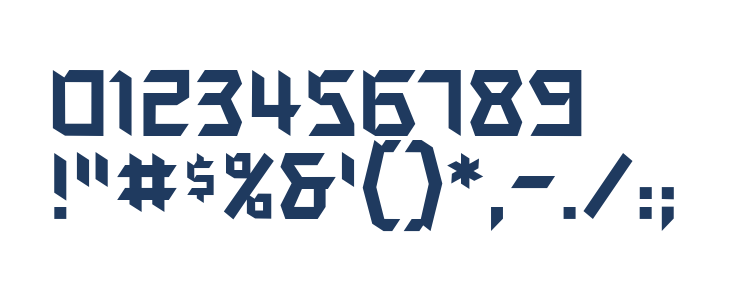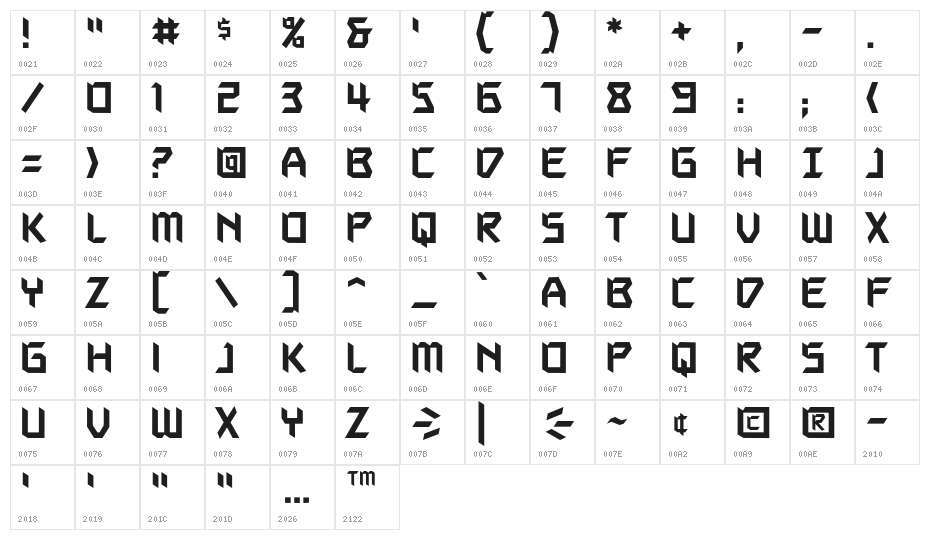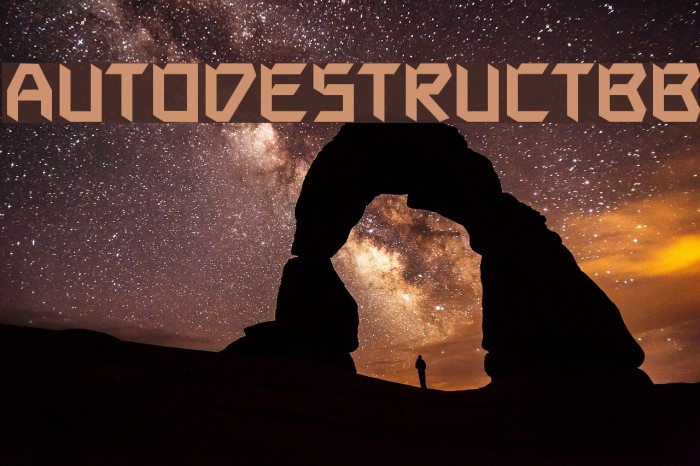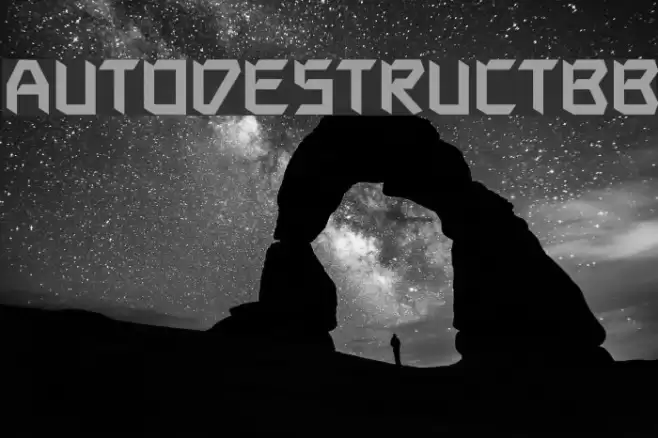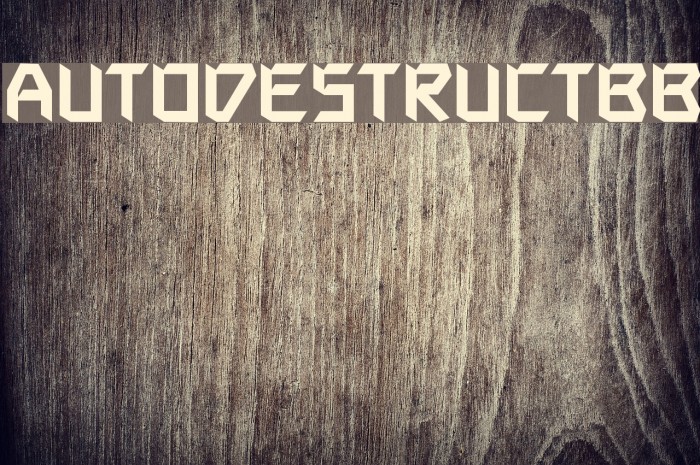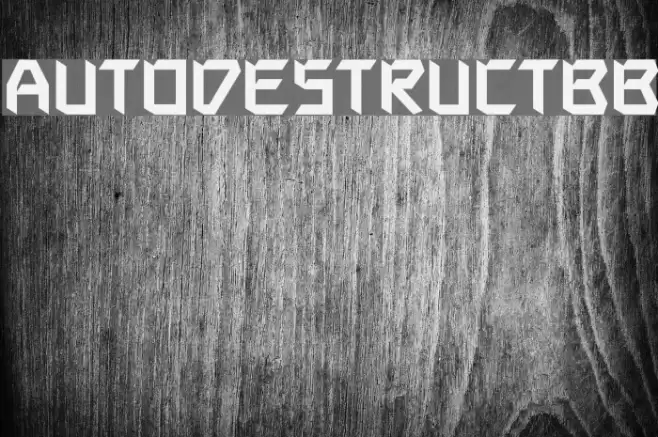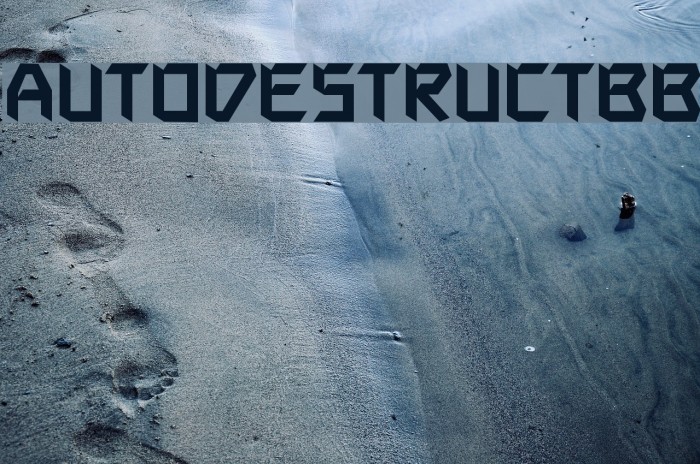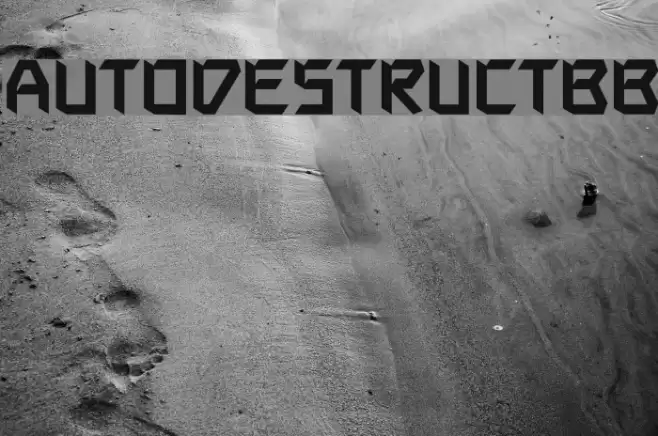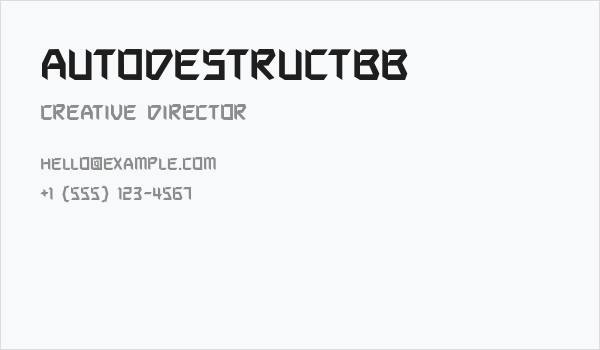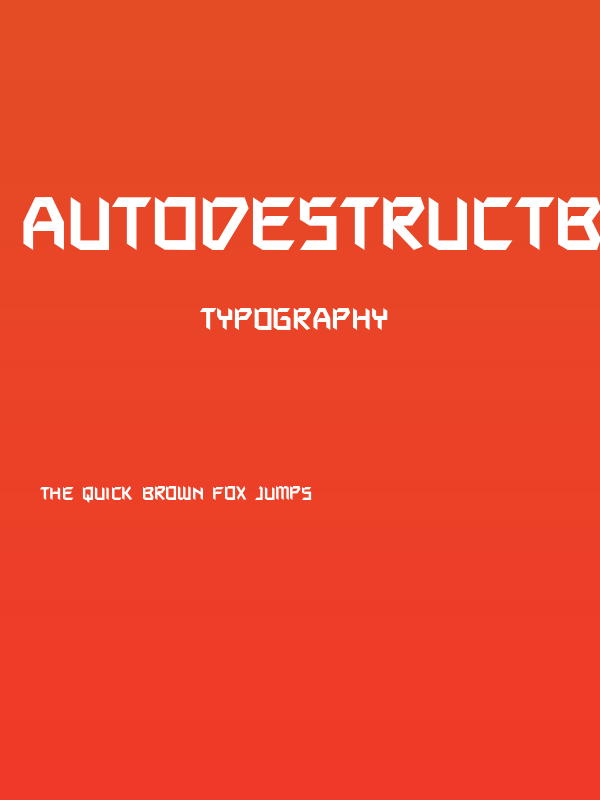
AutodestructBB Font
AutodestructBB Description
This font features a bold, geometric design with sharp angles and a futuristic aesthetic. The characters are constructed with a consistent thickness, creating a uniform appearance across both uppercase and lowercase letters. The angular cuts and edges give it a distinct, edgy look, making it stand out in any design. The numerals and special characters follow the same stylistic approach, ensuring cohesion throughout the typeface. This font is ideal for projects that require a modern and dynamic feel, such as technology-related branding or sci-fi themed designs.
| Proposed Projects | Ideal for technology branding, sci-fi themes, video game titles, and modern posters. |